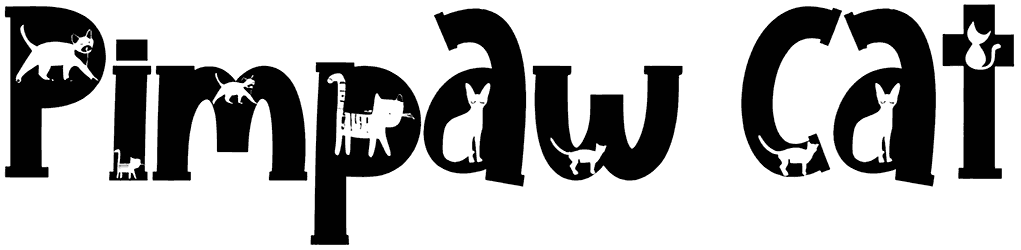
Pimpaw Cat Font
Pimpaw Cat is the obvious choice for any cat person or anyone else who wants to add some playfulness to their design. Sometimes this cat font is your best shot because it matches the theme of your pet shop flyers and kitty food packaging, or maybe it’s just there for its cute touch.
It doesn’t matter why you like this cartoon font, as long as you can count on it to get you where you want, even with no numbers.